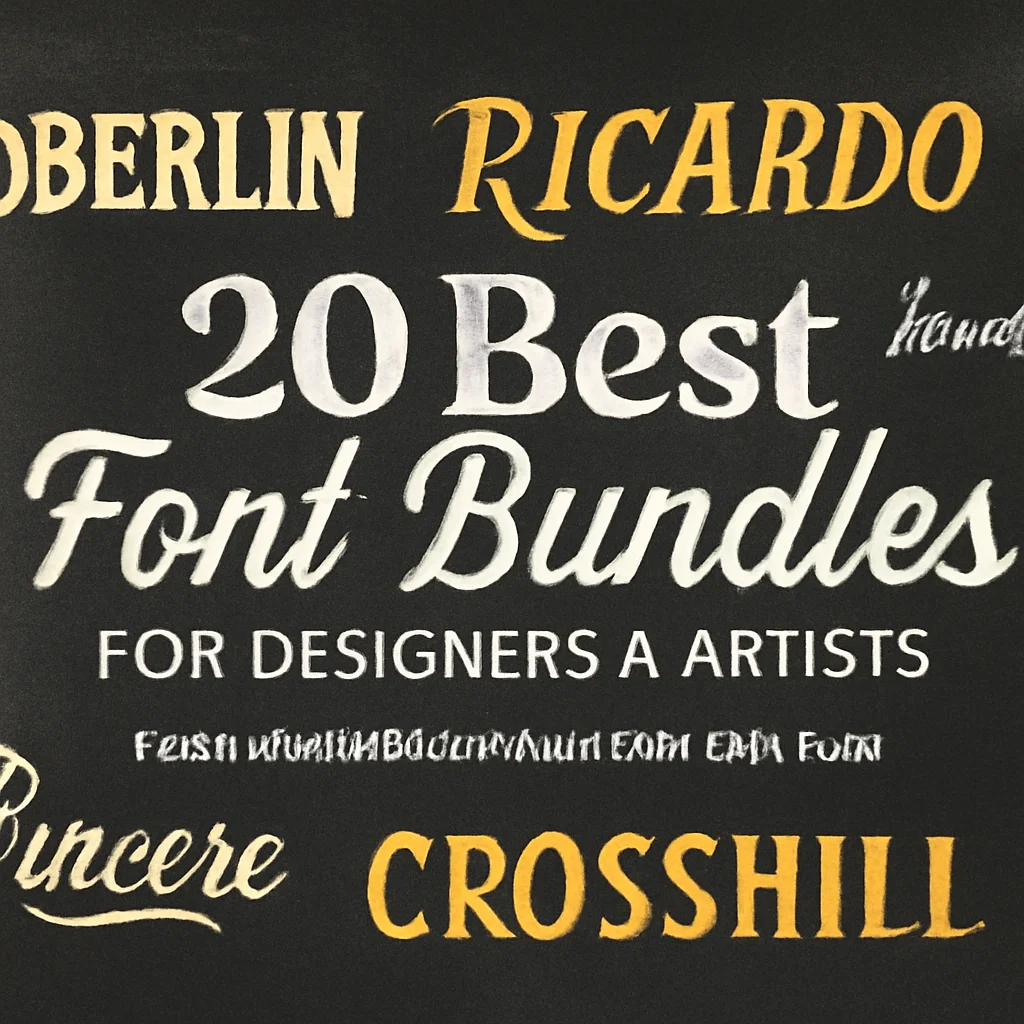
Hey there, creative soul! 👋 Are you ready to level up your typography game? We all know that the right font can make or break a design—it’s the secret sauce that turns a good project into a jaw-dropping masterpiece. ✨
Welcome to the brushespack Collection Part 166, where I’ve handpicked 20 absolutely stunning font bundles that will ignite your imagination. Whether you’re a branding wizard, a logo lover, or a digital dreamer, these bundles are packed with personality, versatility, and pure artistic magic. Let’s dive in! 🚀🎨
Why Use These Font Bundles?
Typography isn’t just about letters—it’s about emotion, identity, and connection. With these curated bundles, you’ll save hours of hunting for the perfect typeface and gain instant access to premium, high-quality styles that elevate everything from logos and posters to social media and packaging. Best of all? They’re designed to work together, giving your projects a cohesive, professional look in no time. 🏆
Top 20 Font Bundles Picks
Display Fonts Collection
Make a bold statement with these eye-catching display fonts! Perfect for branding, posters, and logos—each style is crafted to grab attention and add instant personality. 💥
Debut Studio Font Bundle
A dazzling mix of elegant serifs, modern sans-serifs, and playful scripts! This bundle is your all-in-one typography toolkit for any design challenge. 🎭
Editor’S Pick Serif Bundle
Elegance redefined! This curated serif collection brings timeless sophistication to your projects—think luxury branding, editorial layouts, and refined logos. 🖋️
Decorative Font And Monogram Bundle
Add a personal, artistic flair to your designs with unique decorative styles and beautiful monograms! Ideal for wedding invites, custom logos, and gifts. 💌
Collection Bundle
A treasure chest of high-resolution design assets! From diverse styles to easy-to-use files, this bundle is your go-to creative toolkit. 🧰
Cool Fonts Bundle – 58 Premium Fonts
58 unique fonts in one massive pack? Yes, please! From serifs to scripts, this bundle has every style you need to stay ahead of the curve. 🌟
Crafting Font Bundle
Get your hands on a diverse mix of elegant scripts and bold display styles! Perfect for all your creative crafting projects, big or small. 🧵
Crafter’S Wish Font Bundle
A dream come true for every crafter! This collection blends elegant scripts with bold sans-serifs, so you’ll always have the perfect typeface at your fingertips. ✂️
Classic Font Collection – 67 Premium Fonts
67 beautifully crafted fonts that never go out of style! From elegant serifs to modern sans-serifs, this is a timeless investment for any designer. 🏛️
Classic Retro Bundle Font
Travel back in time with this nostalgic bundle! Packed with charming retro styles from elegant scripts to bold displays, it’s pure vintage gold. 📻
Cm – Sports Fonts Bundle Btl1
Score big with these dynamic, sporty fonts! From bold and aggressive to sleek and modern, this bundle is a game-changer for athletic branding. 🏀⚡
Craft Fonts Bundle
Versatility at its finest! This bundle delivers beautifully designed serifs, sans-serifs, and scripts that shine in branding, web, and print. 🎨
Cm – 10 Best Script Bundle
Ten exquisite script fonts that scream elegance and sophistication! Perfect for invitations, logos, and any project that needs a touch of class. ✍️
Bestseller Bundle Font
A fan-favorite for a reason! This versatile collection includes serif, sans-serif, script, and display styles with tons of weights to play with. 🏆
Best Collection 28 Font Bundles Script
28 stunning script fonts that bring your branding and logos to life! Each style is unique, versatile, and ready to impress. 🖌️
Best Handwritten Font Bundle
Add a personal, human touch to your designs with these gorgeous handwritten fonts! Perfect for web, print, and everything in between. ✏️💖
Beauty Font Bundle
A gorgeous collection of elegant scripts and modern sans-serifs that will make your projects shine! Ideal for beauty brands, lifestyle blogs, and chic packaging. 💄✨
Bf Natural Font Bundle
Nature-inspired and beautifully crafted! This bundle mixes elegant scripts with bold display fonts, giving your work an organic, earthy feel. 🌿
Best Seller Font Bundles
The crème de la crème of font collections! Each typeface is carefully selected for quality and versatility—perfect for any premium design project. 🏅
Best Font Bundle For Holidays – 30 Fonts
Get into the festive spirit with 30 holiday-themed fonts! From elegant scripts to bold display styles, this bundle makes every project merry and bright. 🎄🎁
And there you have it—20 incredible font bundles from the brushespack Collection Part 166 that are guaranteed to spark your creativity and streamline your workflow! 🎉 Whether you’re designing a brand identity, a stunning website, or a cozy holiday card, these typefaces offer the variety, quality, and personality you need to stand out.